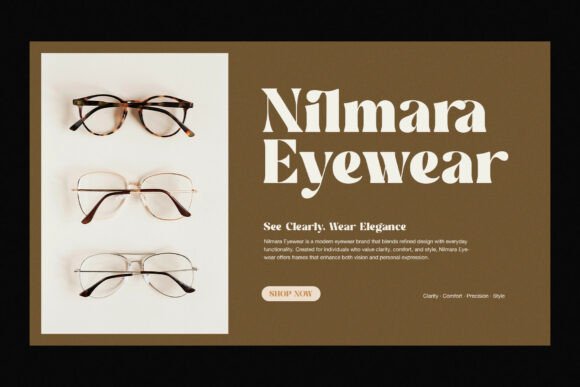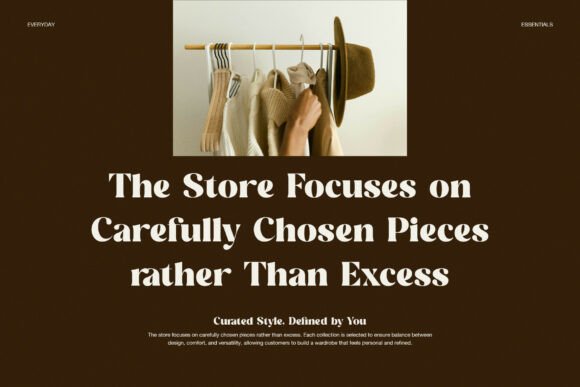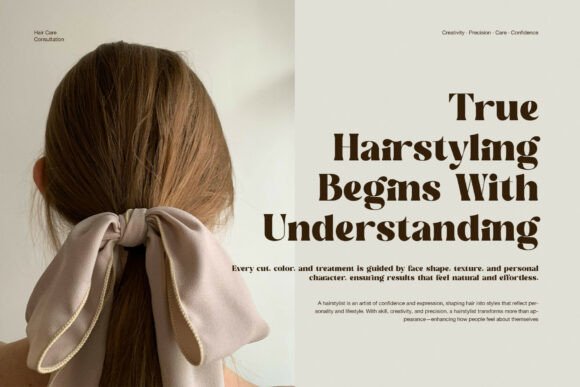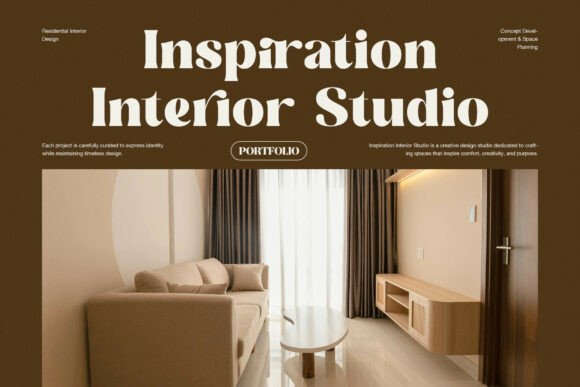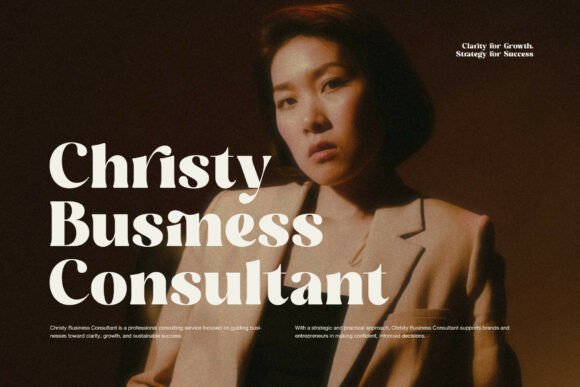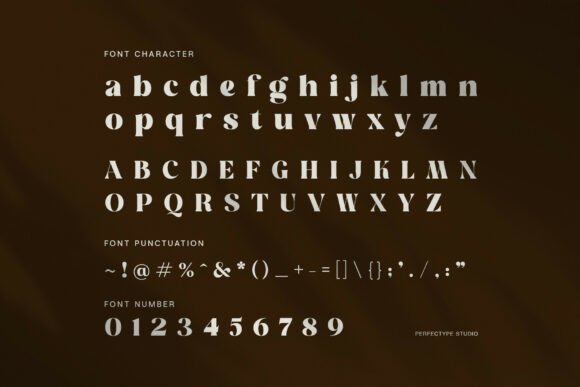
Introduction to Milant Font
As designers, we’ve all been there – staring at a blank canvas, trying to bring a creative project to life. The moment when everything comes together, and the perfect font appears, is truly magical. But what if that perfect font could evoke confidence, warmth, and refined simplicity all at once? Enter the Milant Font, a stunning modern serif font that is sure to elevate any design project.
With its elegant and composed feel, the Milant Font is a strong choice for designers who want typography that feels expressive yet controlled. This high-quality design resource is perfect for any creative project that requires a touch of sophistication and style. Whether you’re working on a logo, brochure, or website, the Milant Font is sure to provide a clean and timeless look that will leave a lasting impression.
Key Features of Milant Font
- High-quality design resource ideal for creative projects, including logos, graphics, and other visual elements.
- Includes a range of weights and styles, from light to bold, to suit the needs of your creative project.
- Perfect for use in a variety of creative projects, including branding, advertising, and editorial design.
Honest Review: Milant Font
As a designer, I’m always on the lookout for high-quality design resources to elevate my creative projects. Recently, I had the chance to try out the Milant Font, and I’m excited to share my honest review.
- ✨ Elegant and modern design aesthetic, perfect for minimalist-inspired projects
- ✨ High-quality vector graphics, ideal for print and digital use
- ⚠️ Limited character set, which may not be suitable for complex typography projects
- ⚠️ Not suitable for use in very small sizes, as the font may become distorted
Overall, I’m impressed with the Milant Font, and I would recommend it for designers looking for a high-quality, modern font for their creative projects. While it may have some limitations, it’s a great addition to any design resource library.
Milant Font is a high-quality design resource that can elevate your creative project. With its unique style and transparent background, it’s perfect for adding a touch of sophistication to your designs.
Getting the Most Out of Milant Font
To get the most out of Milant Font, experiment with different font sizes, colors, and combinations to achieve the desired effect. You can also use it in conjunction with other design elements to create a cohesive look.
Common Use Cases for Milant Font
Milant Font is ideal for use in business cards, logos, brochures, and other marketing materials where a touch of elegance is required. Its unique style makes it perfect for creative projects that demand attention and sophistication.